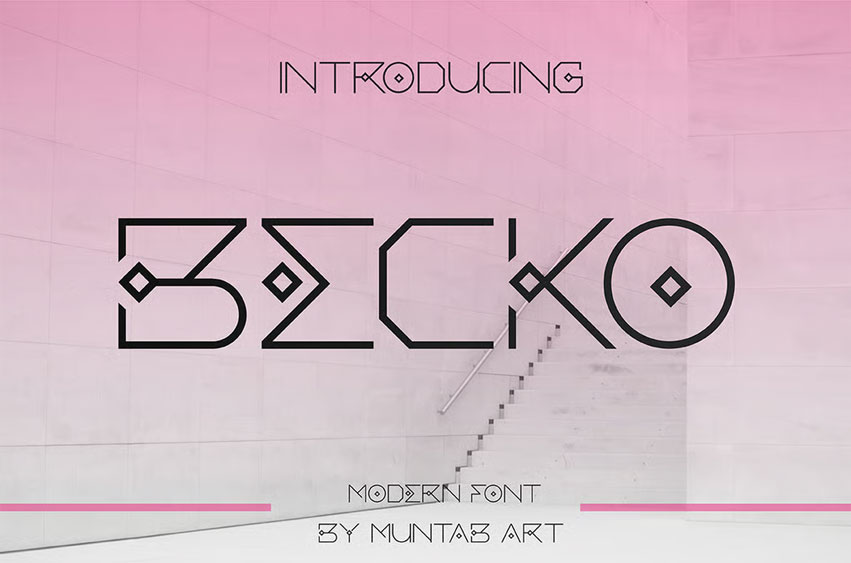
Becko Font includes uppercase letters, numerals, a large range of punctuation. sans serif font with modern style.
Created for poster, web design, branding, illustrations, badges and some other works.